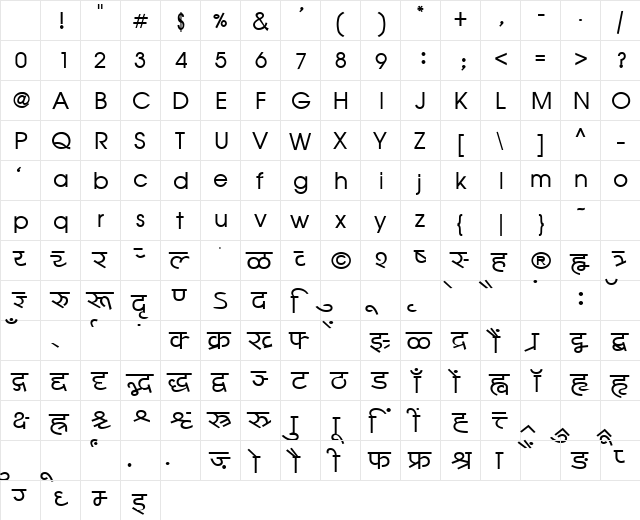
Complete LangscapeDevPooja Normal glyph index. Displaying only characters natively supported by LangscapeDevPooja Normal font.
LangscapeDevPooja is a composed and adaptable typeface that performs quietly and consistently across a wide range of design contexts.